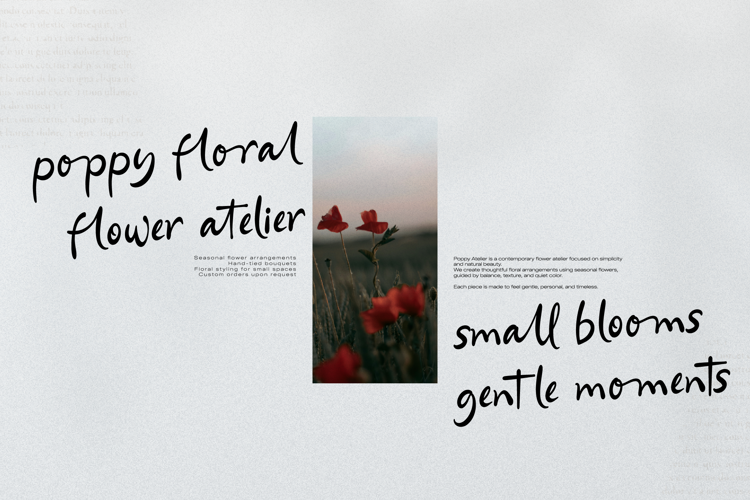
Ferdan Ligate Font
Ferdan Ligate | Modern Ligature Script is suitable for any projects such as: logos, branding projects, homeware designs, product packaging, mugs, quotes, posters, shopping bags, t-shirts, book covers, name card, invitation cards, greeting cards, label, photography, watermark, special events, and all your other lovely projects that need a Script taste.